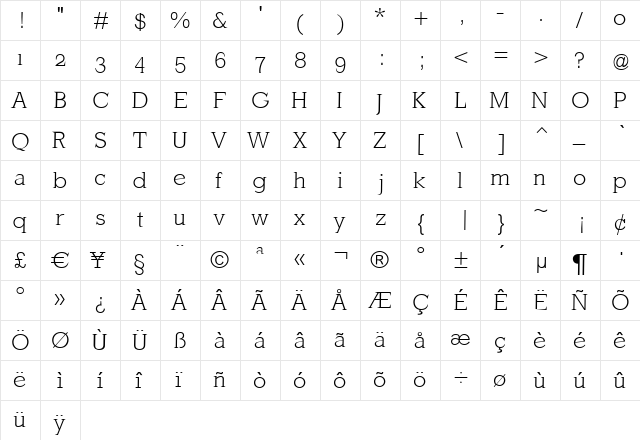
MKLatinLight Regular Font Preview
MKLatinLight Regular
Design Context for MKLatinLight Typeface
MKLatinLight is a composed and adaptable typeface that performs quietly and consistently across a wide range of design contexts. Its slender proportions lend an understated elegance to any composition.